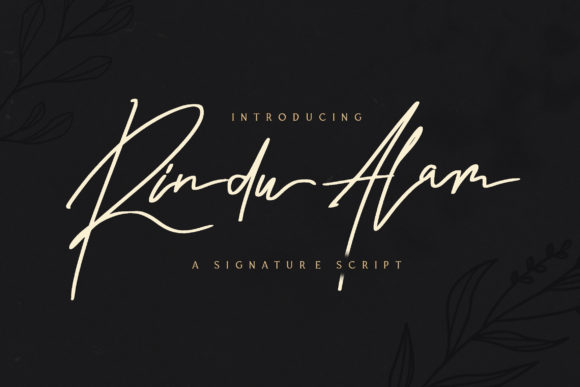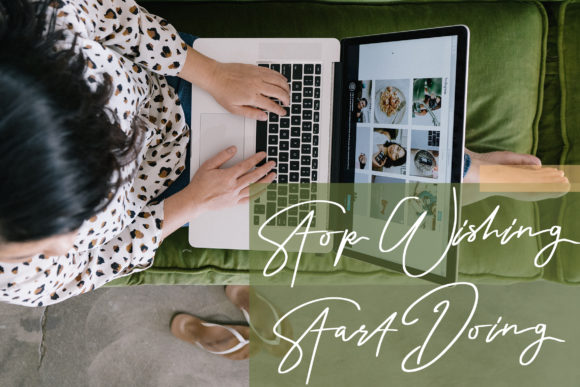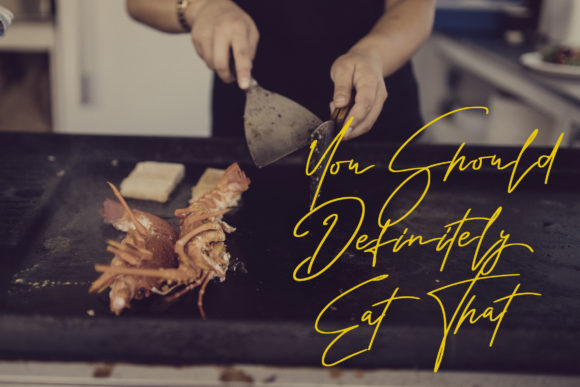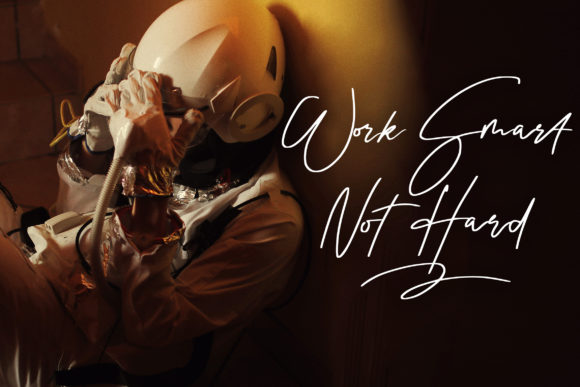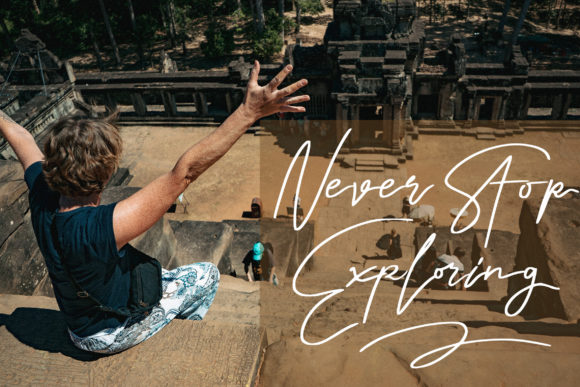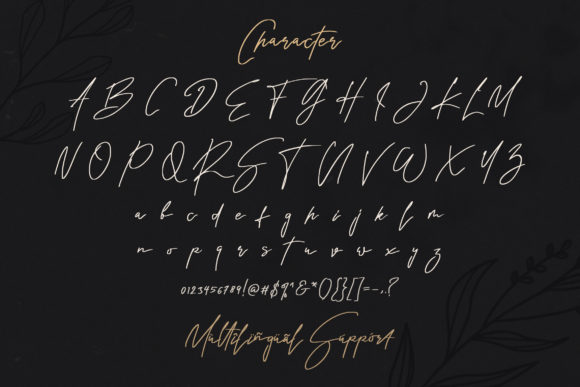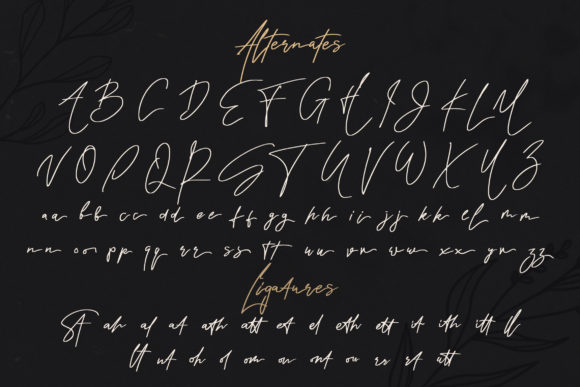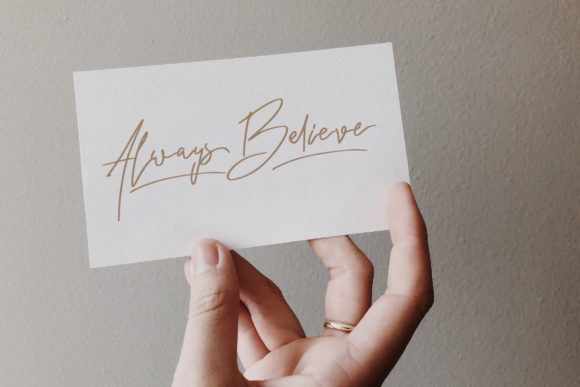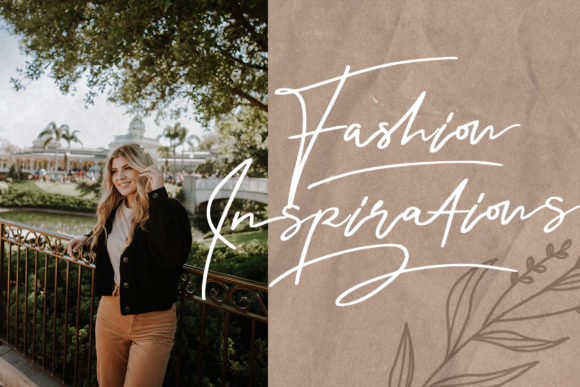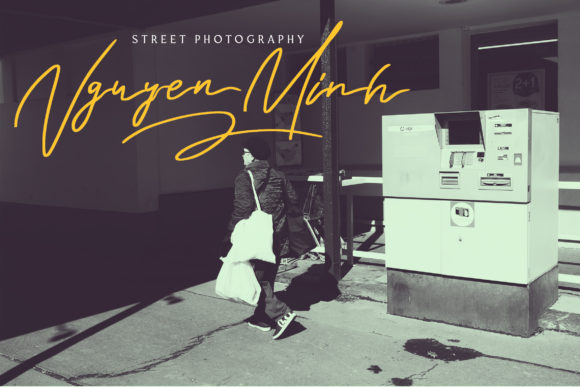
Rindu Alam Font
About Rindu Alam Font
Rindu Alam is inspired by classic typography and brings its own unique style to any design project. This fantastic script font is best suited for headlines of all sizes, as well as for blocks of text that have both maximum and minimum variations. Whether it’s for web, print, moving images or anything else – Rindu Alam will look spectacular. This font is PUA encoded which means you can access all of the glyphs and swashes with ease! It also features a wealth of special features including alternate glyphs and ligatures.